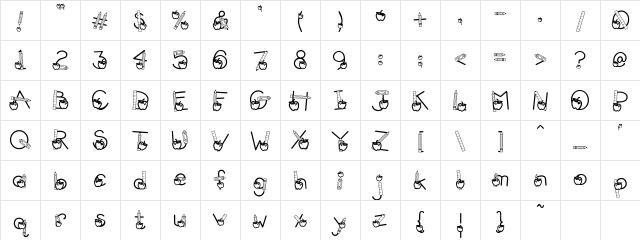
DJ Kool Skool Regular
Design Context for DJ Kool Skool
DJ Kool Skool is a composed and adaptable typeface that performs quietly and consistently across a wide range of design contexts.